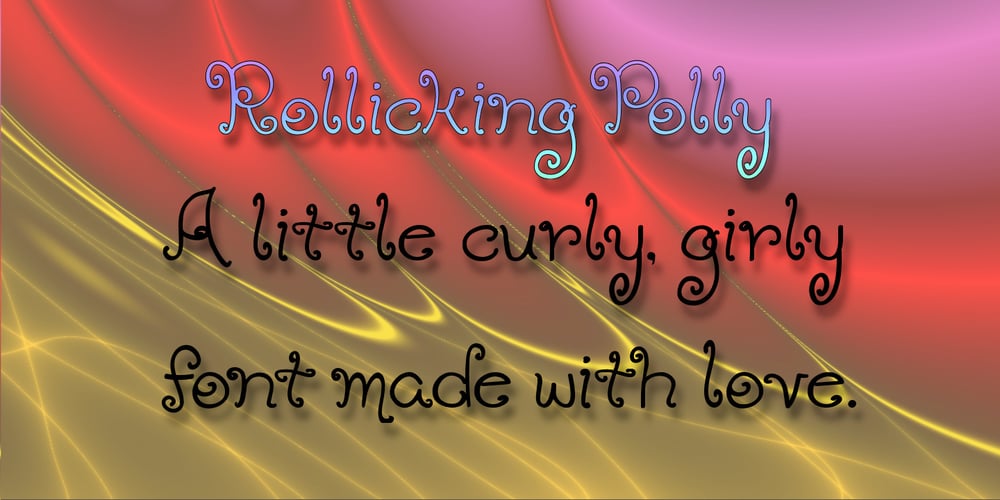
Rollicking Polly
Rollicking Polly font
Rollicking Polly Font Family was designed by published by Happy Heart Fonts. Rollicking Polly contains 1 styles and family package options. This is my frilly, girly font I created in 2011. It’s my version of my teenage handwriting. I hope you enjoy it and use it often. It’s perfect for fun scrap-booking projects or making cute tags etc.